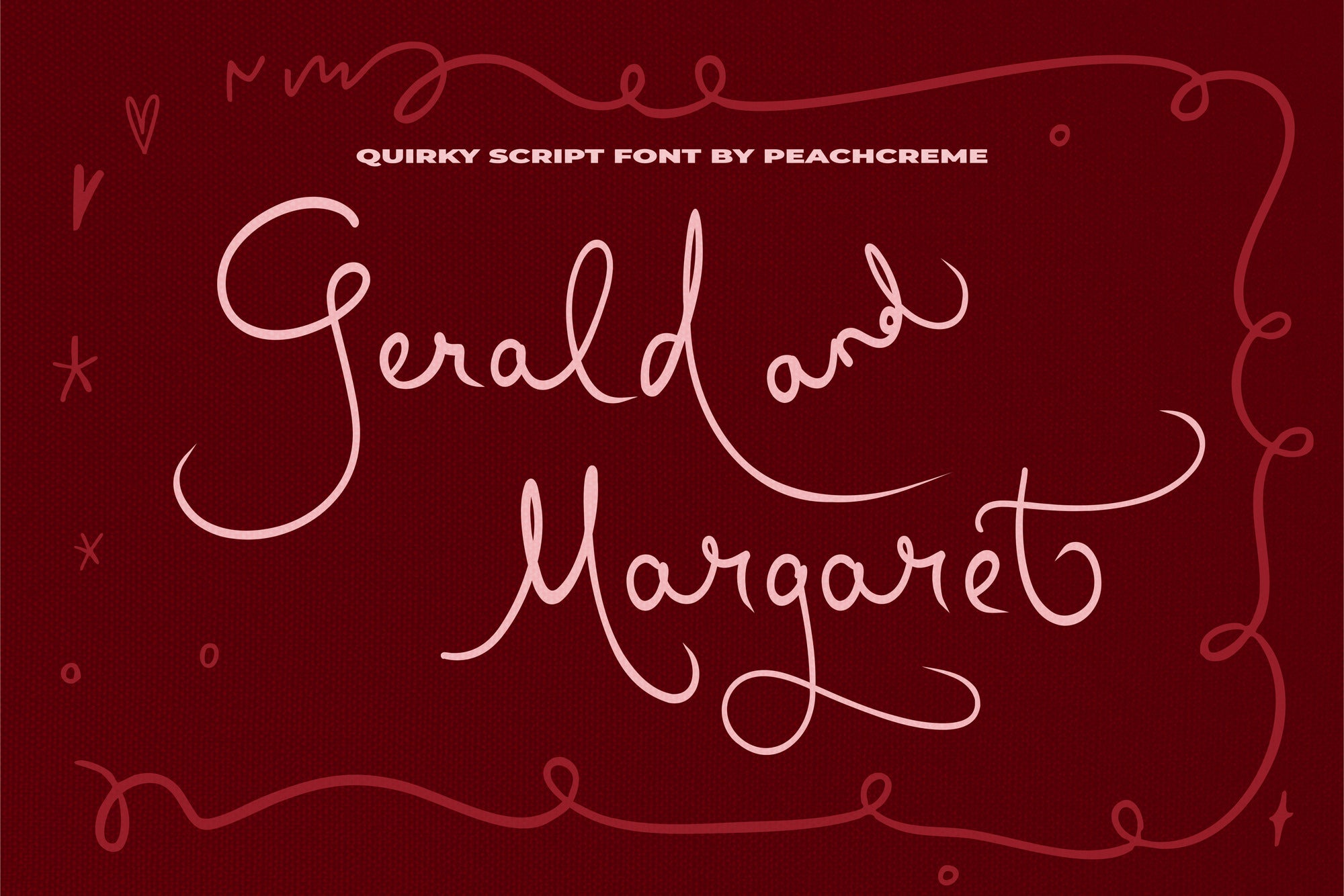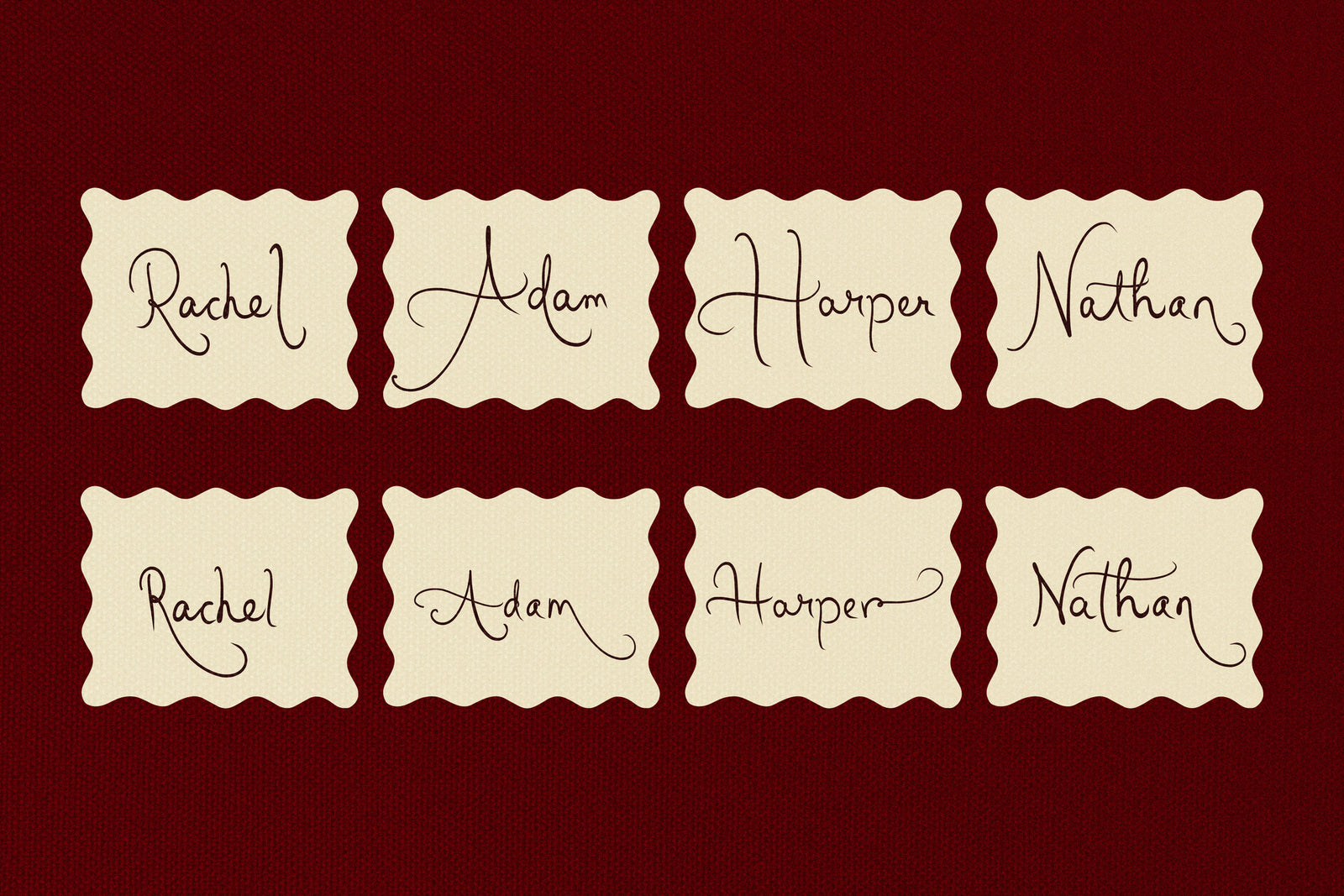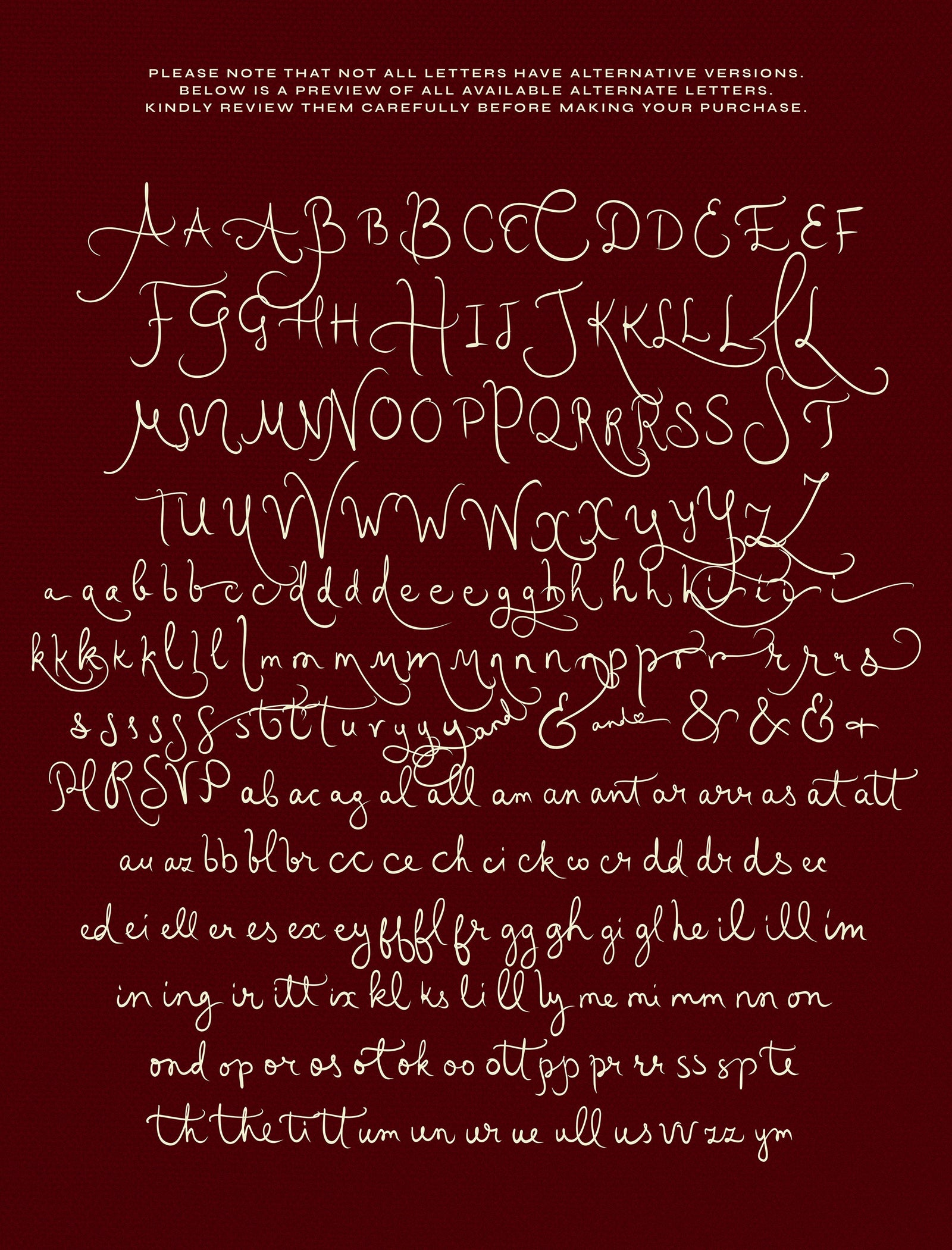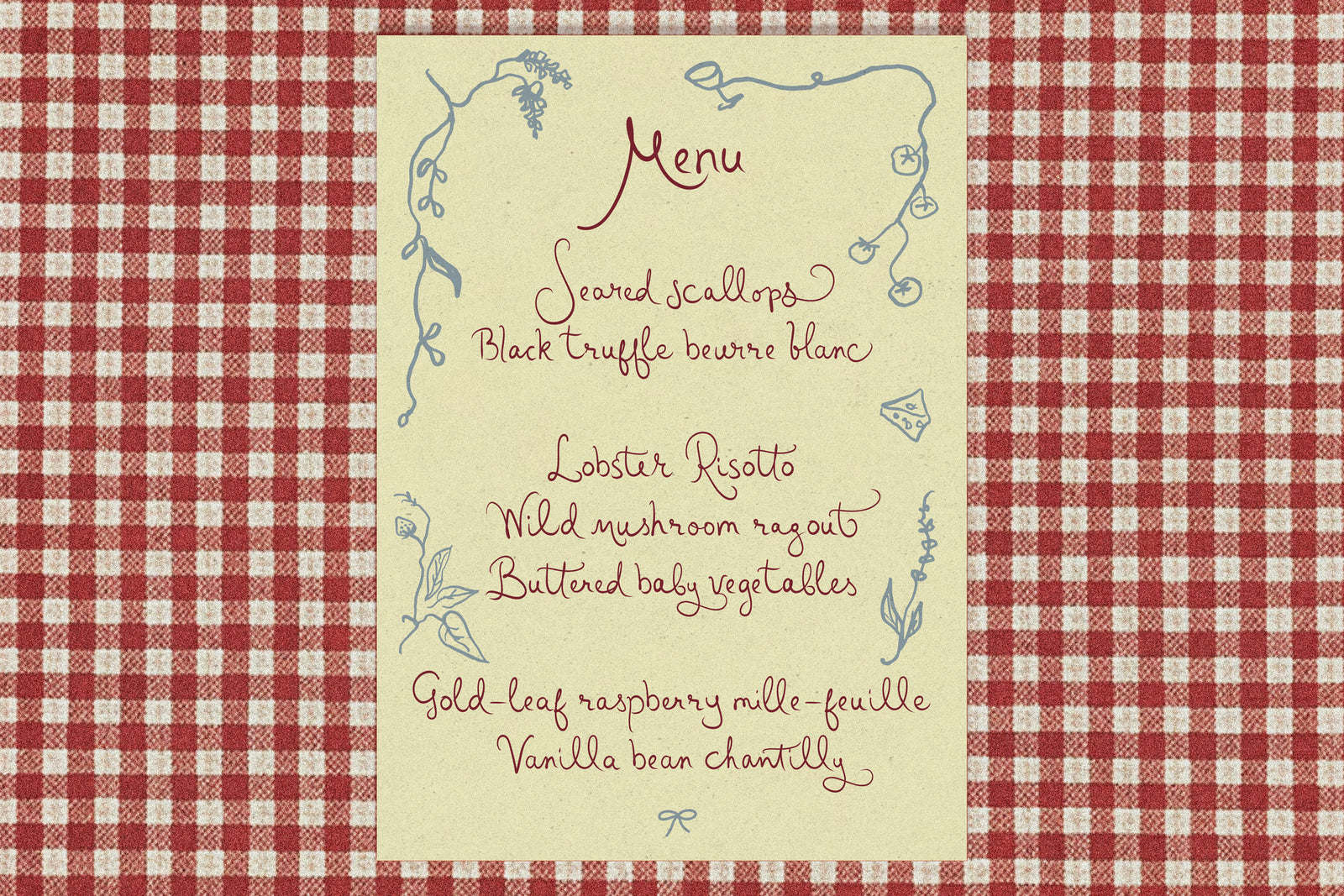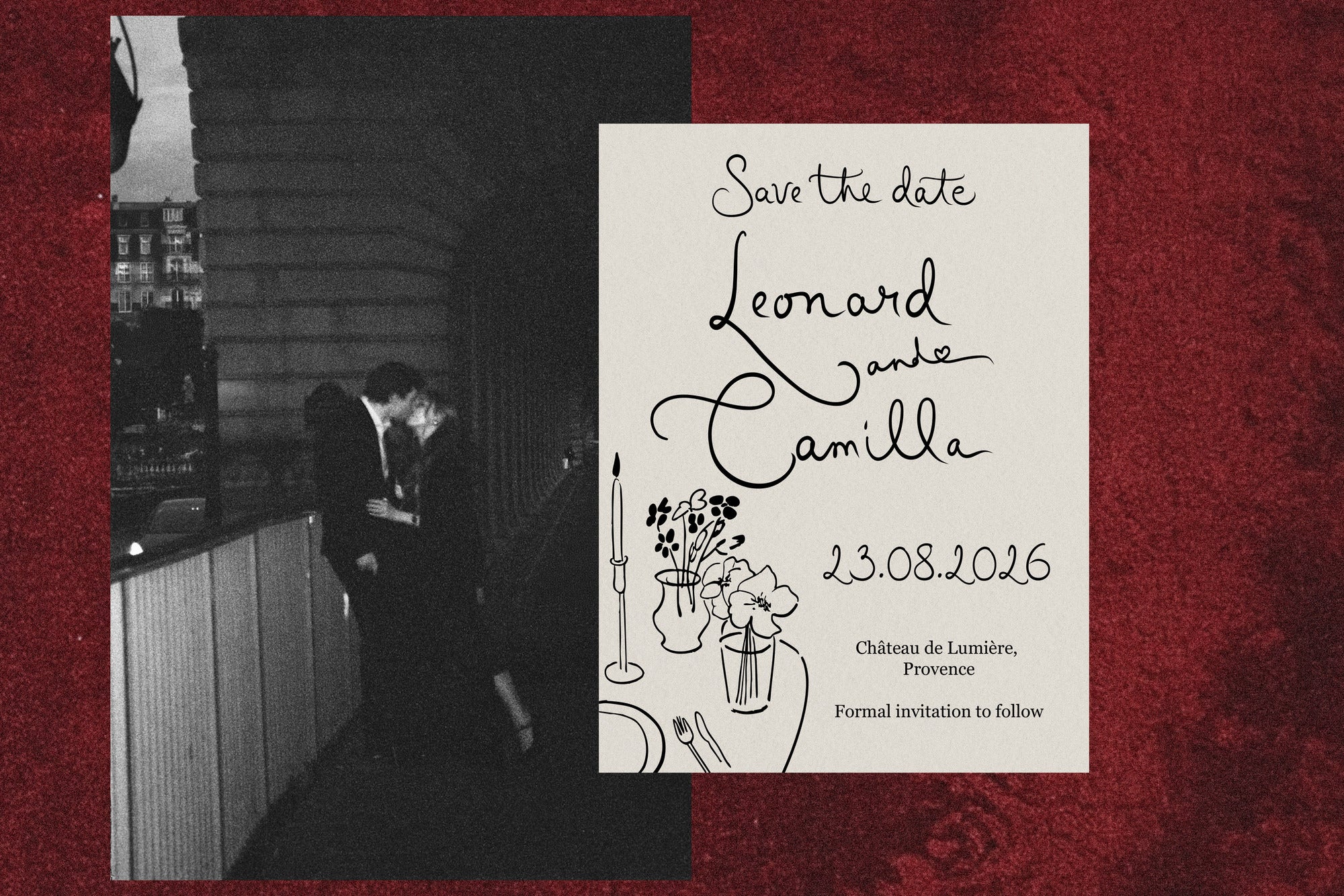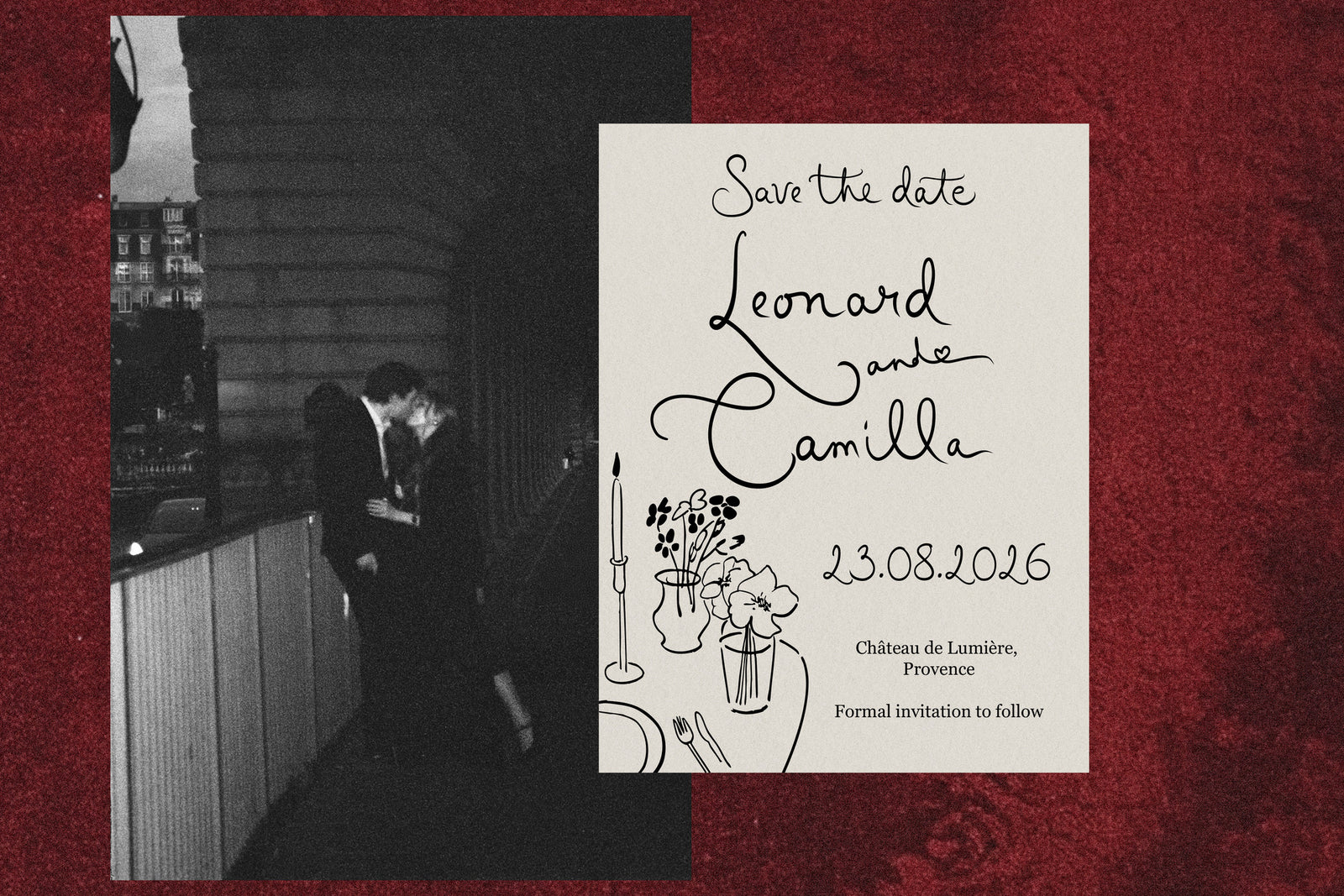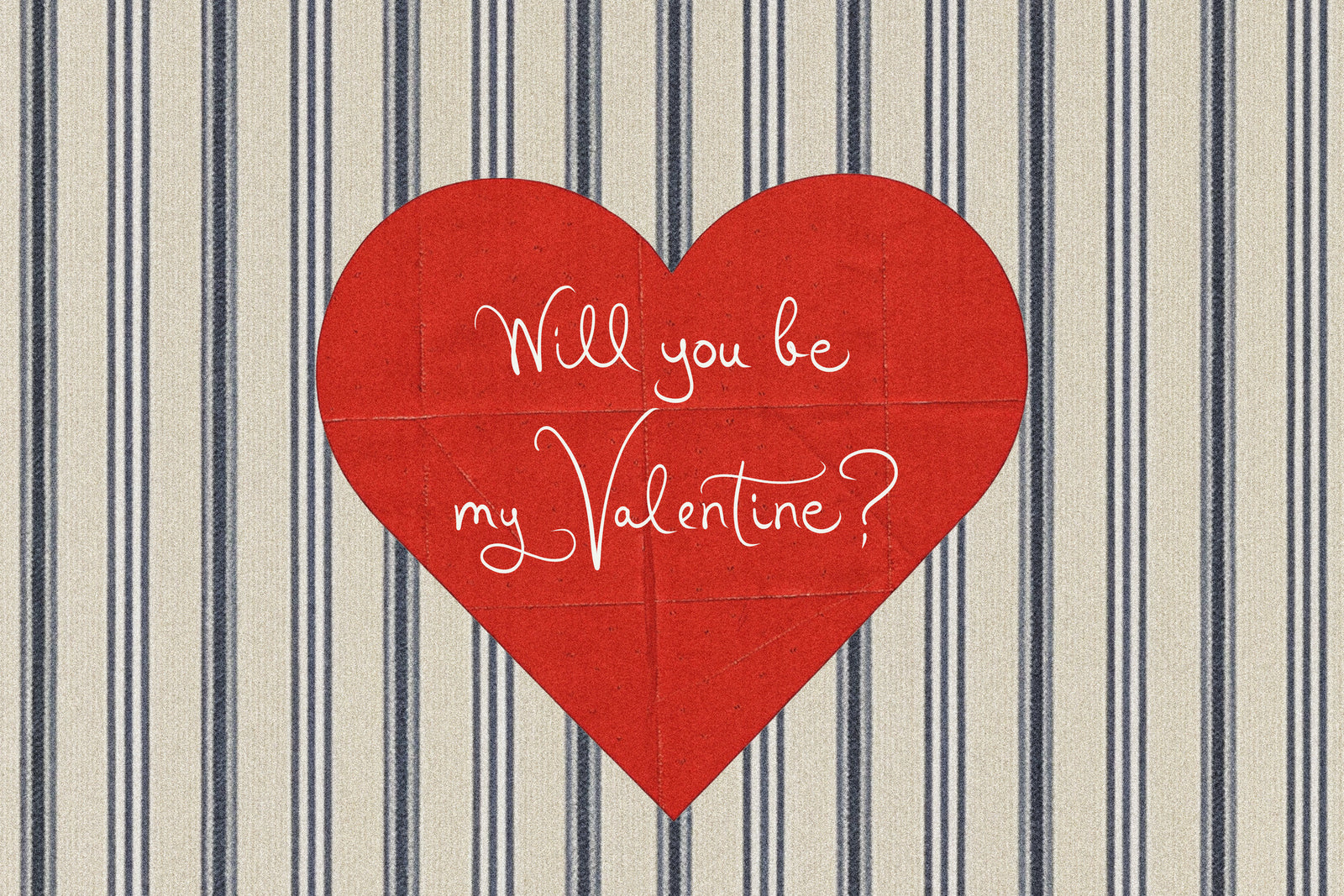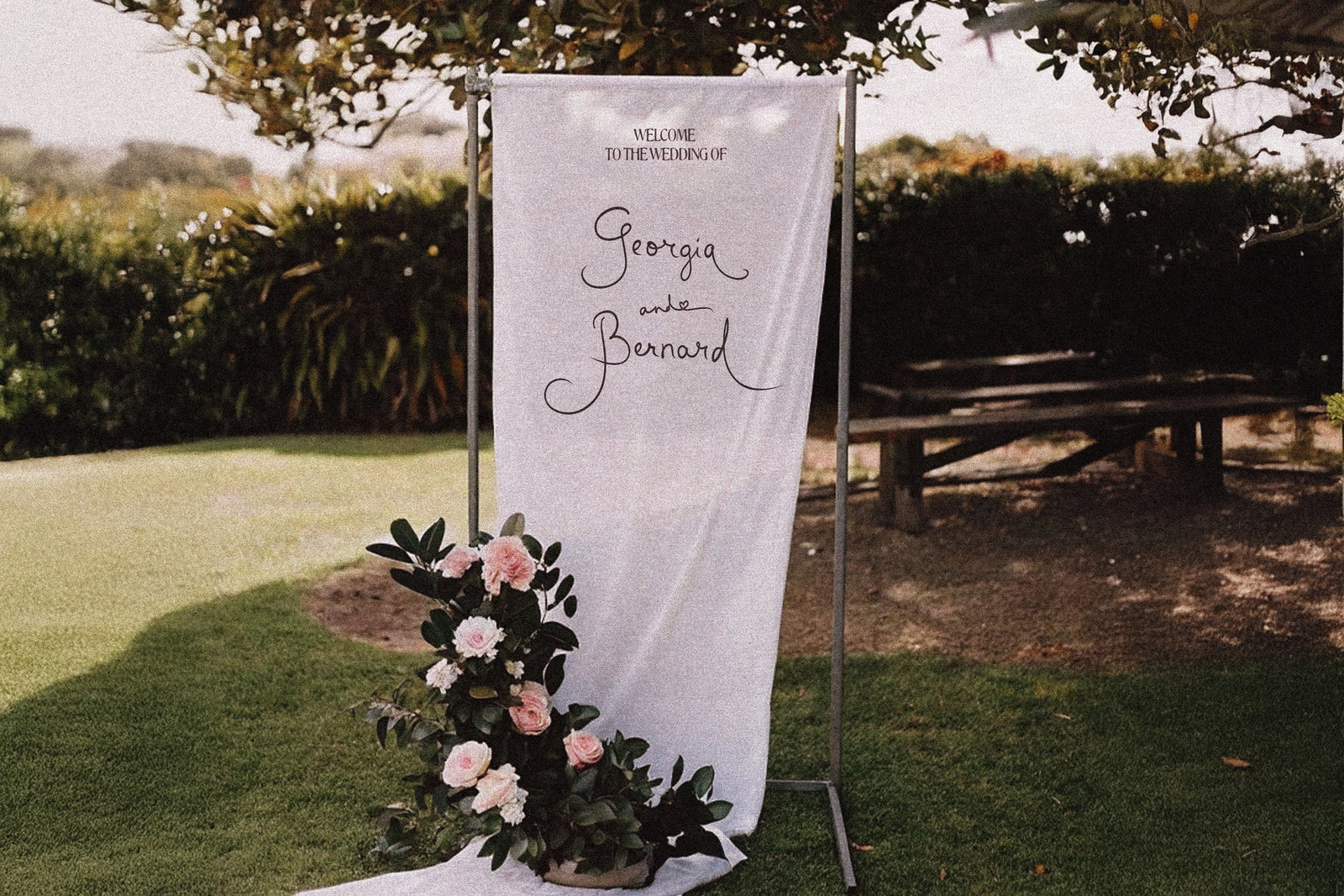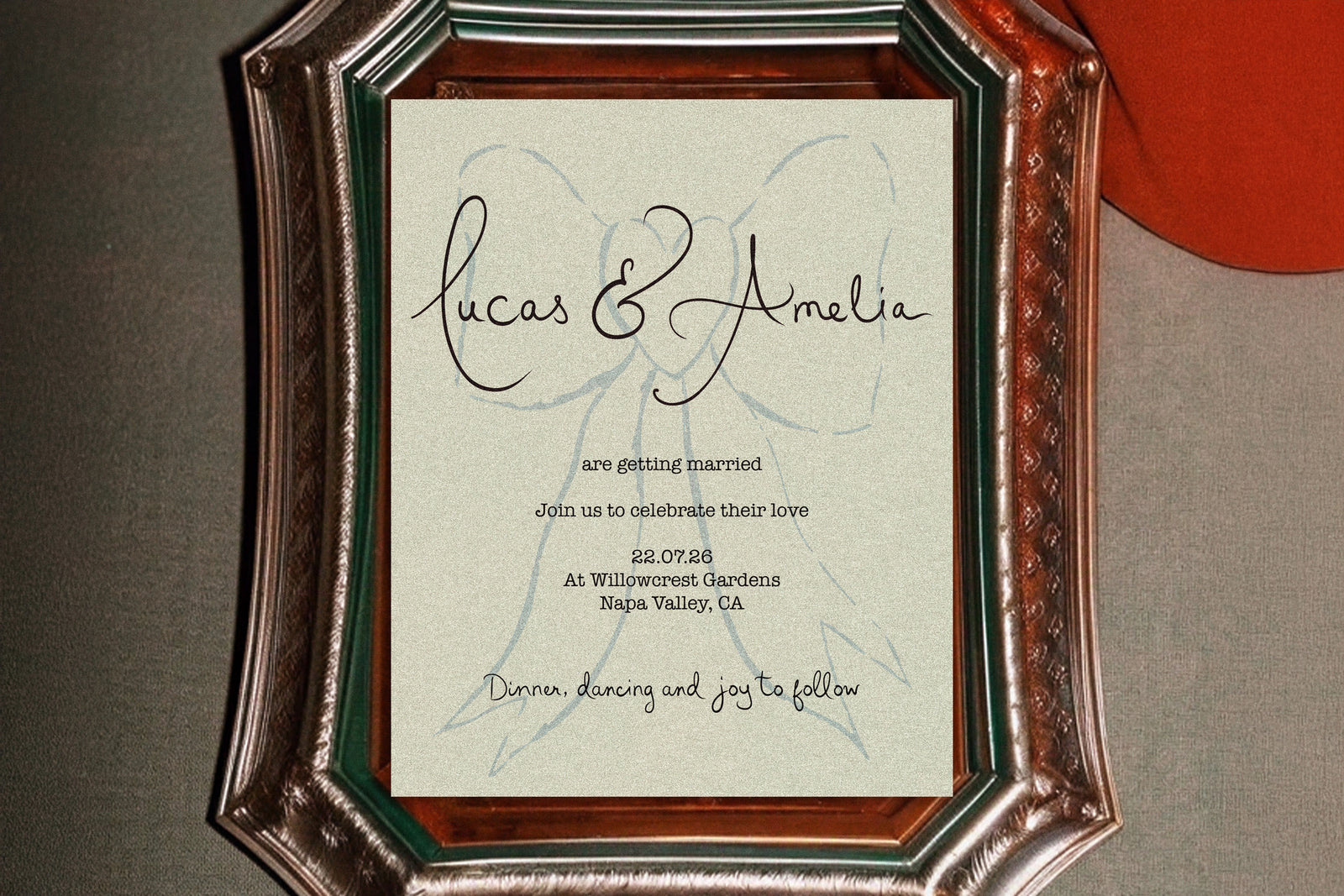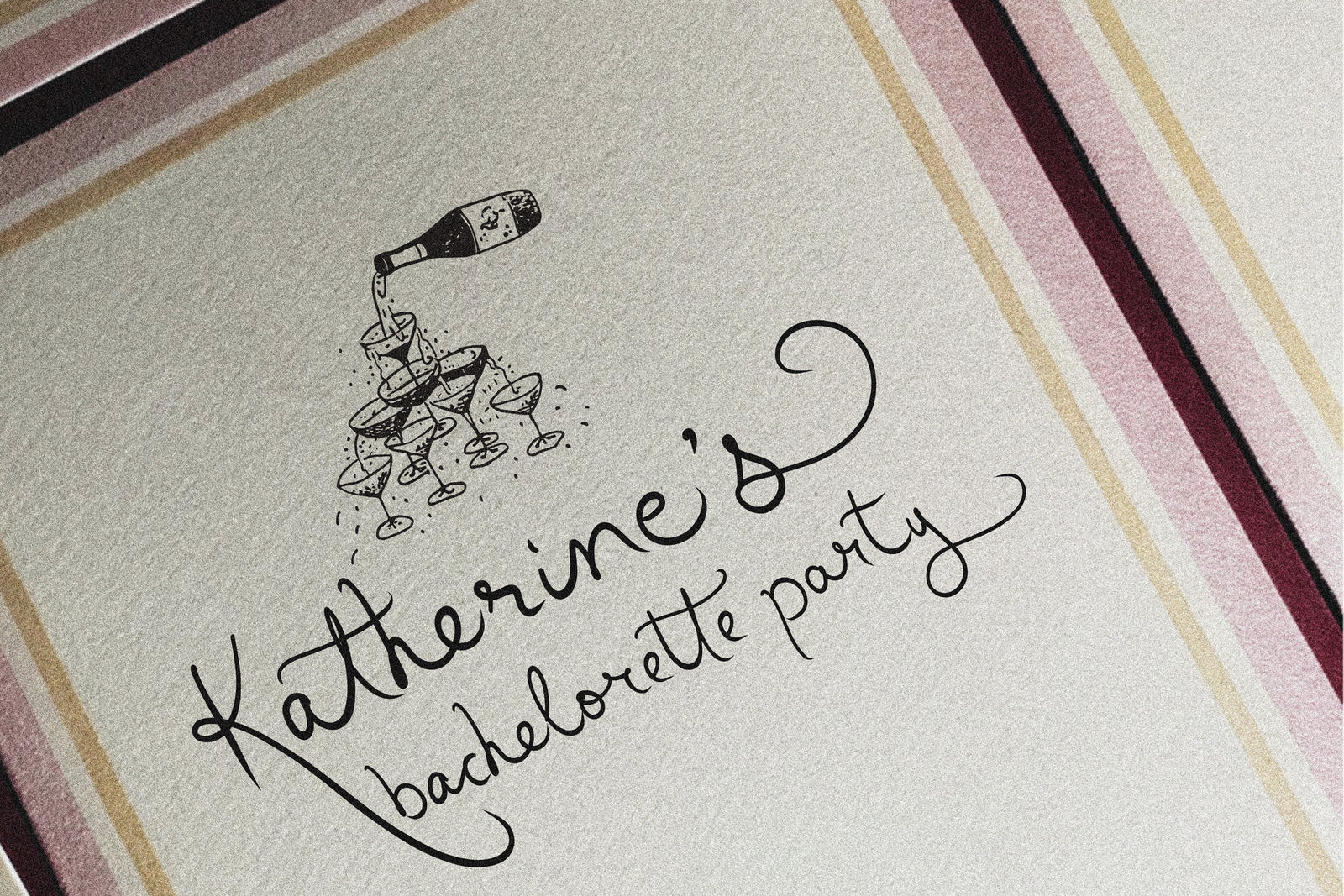
Gerald and Margaret // Quirky Font
Gerald and Margaret is a quirky, light-hearted script font with a playful personality. Its flowing strokes and charming details make it perfect for adding warmth and character to your designs.
This font includes a variety of alternate letters and ligatures to enhance its natural, handwritten feel. However, not all letters have alternates—some have multiple options, while others remain as they are. To explore the full range of available alternates, please check all the presentation images, where you can see exactly which letters have alternatives.
Ideal for invitations, branding, packaging, and creative typography projects, Gerald and Margaret brings a touch of whimsy and personality to any design.